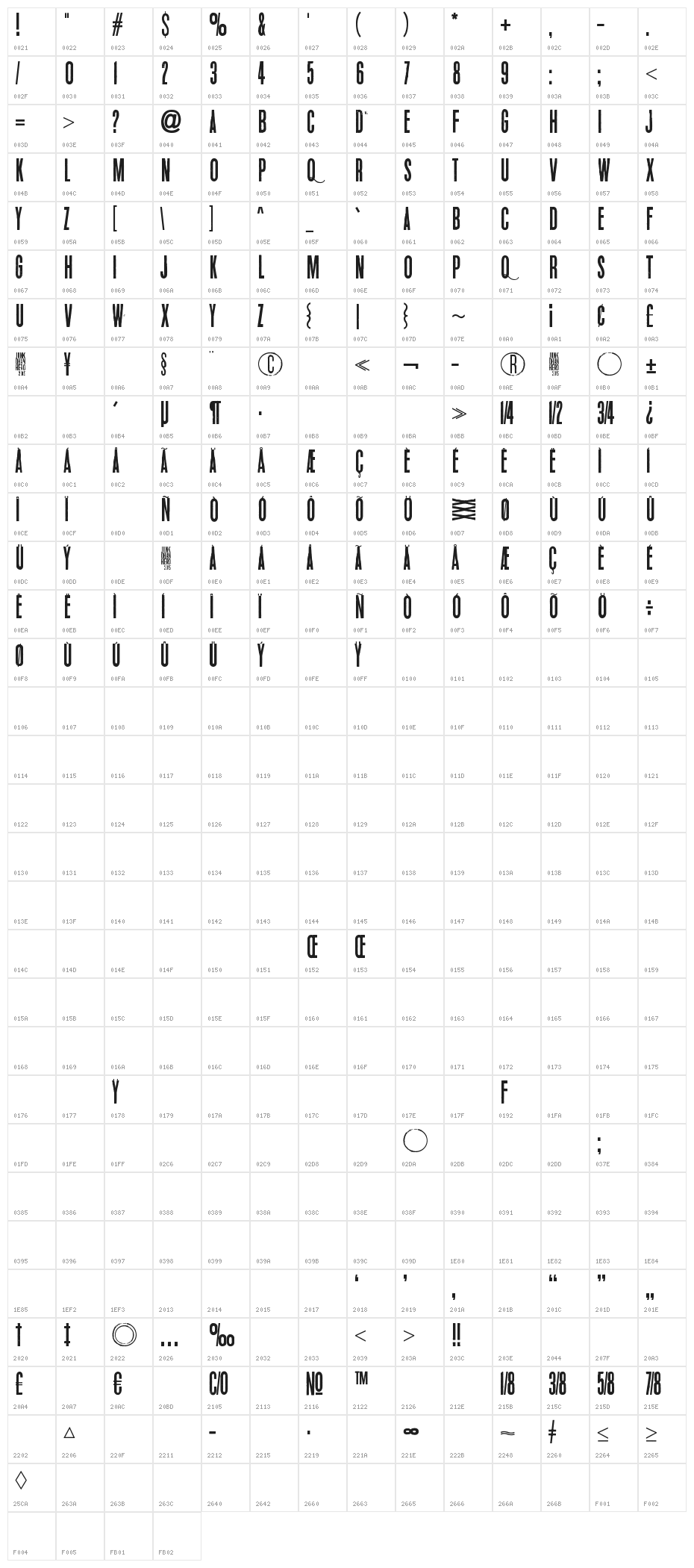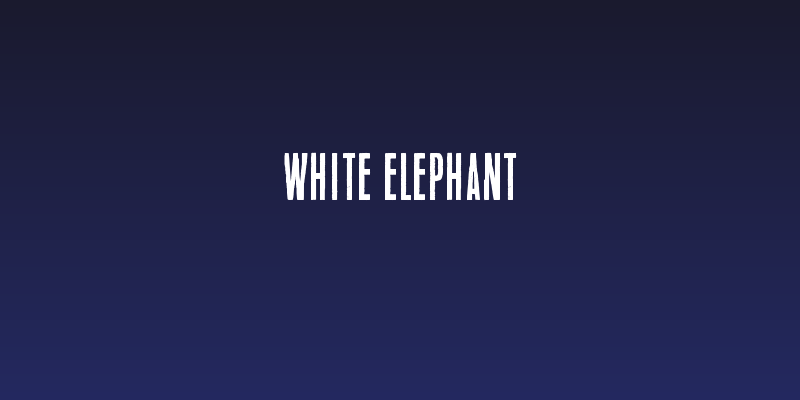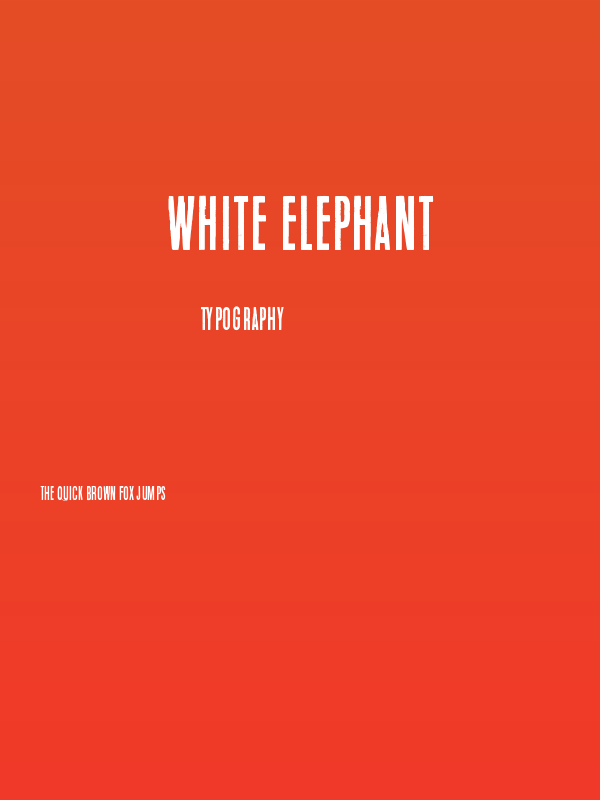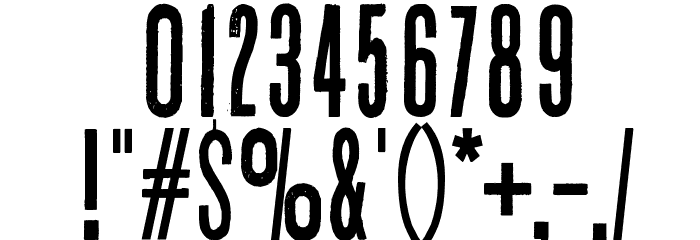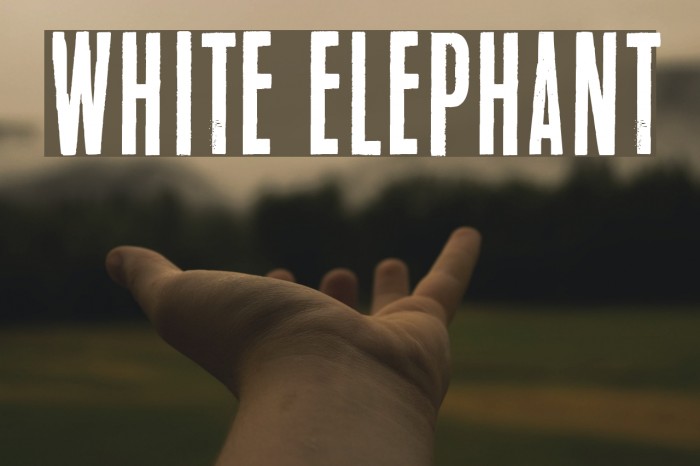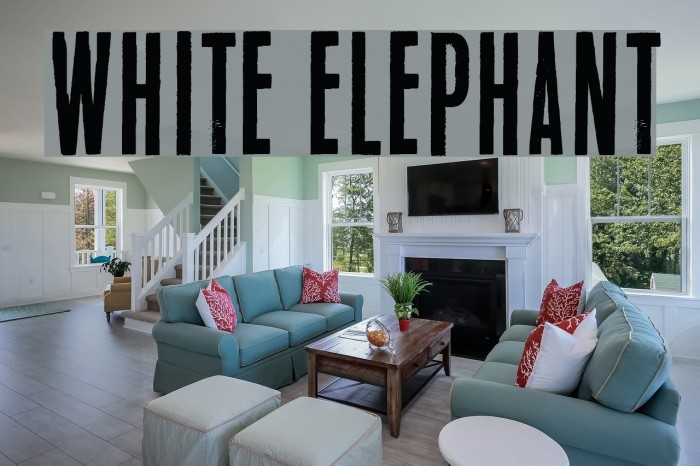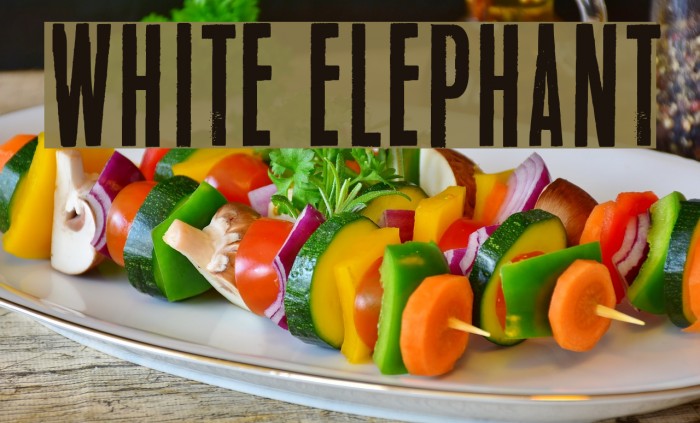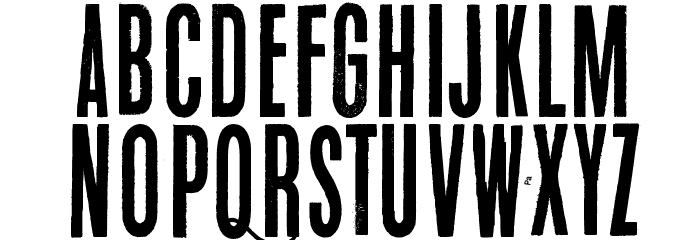
White Elephant Font
White Elephant Description
This font features a bold, condensed style with a distressed texture that gives it a vintage, worn appearance. The uppercase letters are tall and narrow, creating a strong visual impact. The numbers and special characters maintain this bold, distressed look, adding to the overall cohesive design. The font's high contrast between thick and thin strokes enhances its readability while maintaining a unique aesthetic. Its distressed texture suggests a hand-printed or stamped effect, making it ideal for projects that require a rustic or industrial feel.
| Proposed Projects | Ideal for posters, branding, packaging, and any design requiring a vintage or industrial aesthetic. |